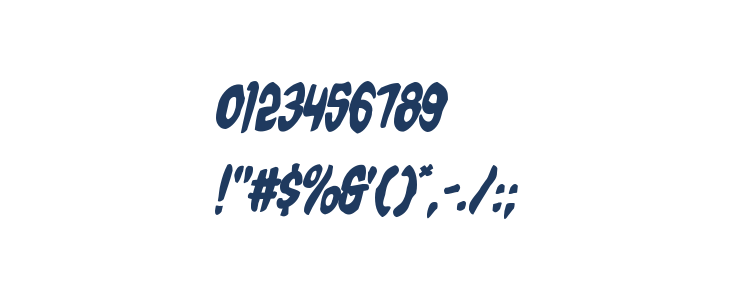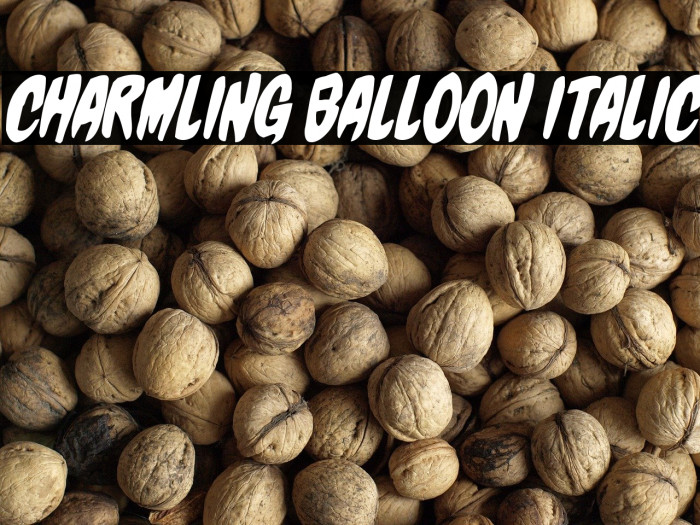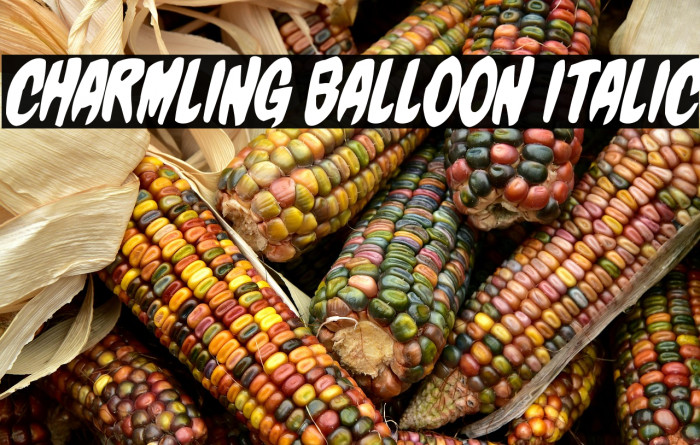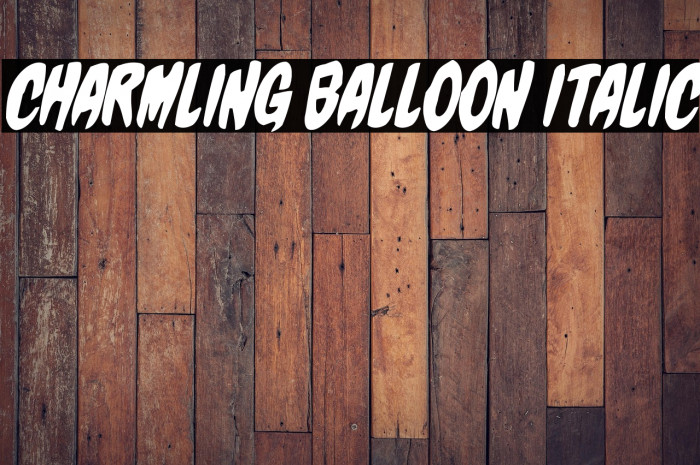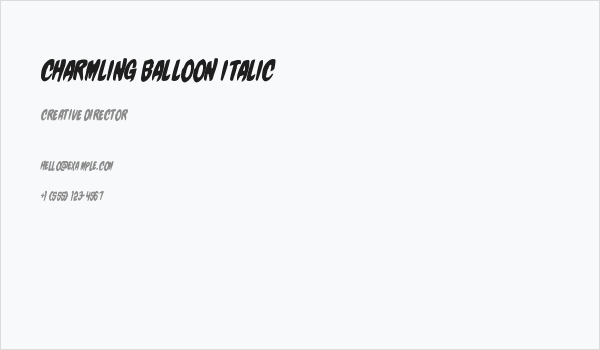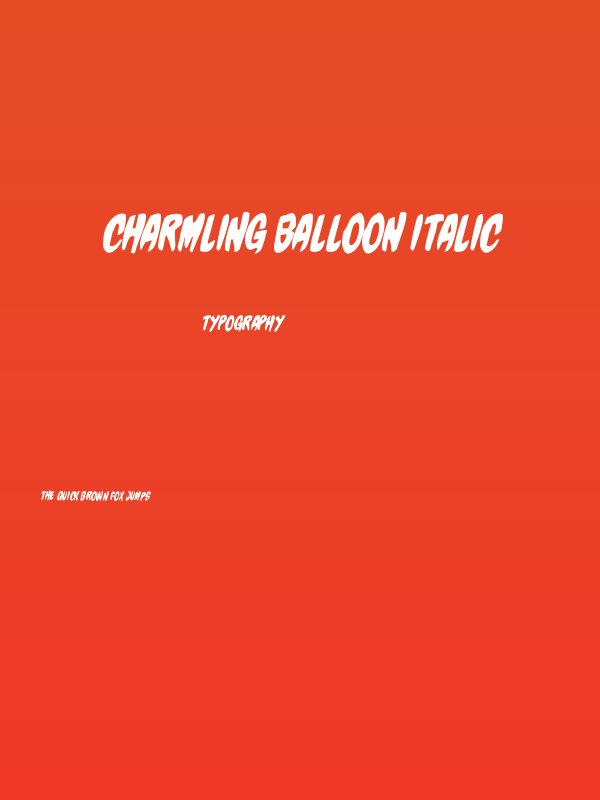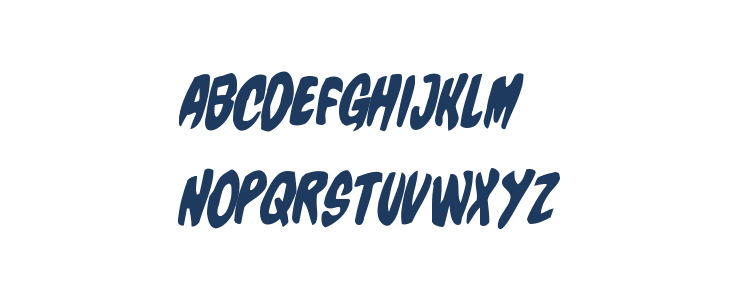
Charmling Balloon Italic Font
Charmling Balloon Italic Description
This playful and bold font features a balloon-like appearance with rounded, inflated letterforms that convey a sense of fun and whimsy. The characters are italicized, adding a dynamic and energetic feel to the text. The strokes are thick and consistent, providing a strong visual impact. The uppercase and lowercase letters maintain a uniform style, while the numbers and special characters are designed to match the overall aesthetic. This font is ideal for projects that require a lively and informal touch.
| Overall Style | Playful, Fun, Energetic |
| Proposed Projects | Perfect for children's books, party invitations, playful branding, and any project needing a fun, informal vibe. |